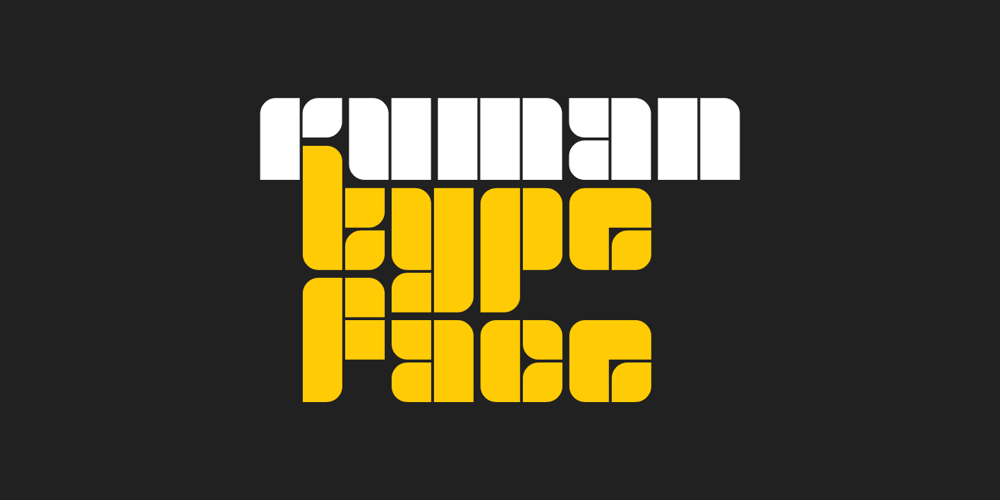
Ruman Font Family was designed by Juraj Chrastina and published by Juraj Chrastina. Ruman contains 1 styles and family package options. Ruman is a display typeface suitable for logotypes and posters. It’s a very simple origami font and short words look almost like abstract pictures.